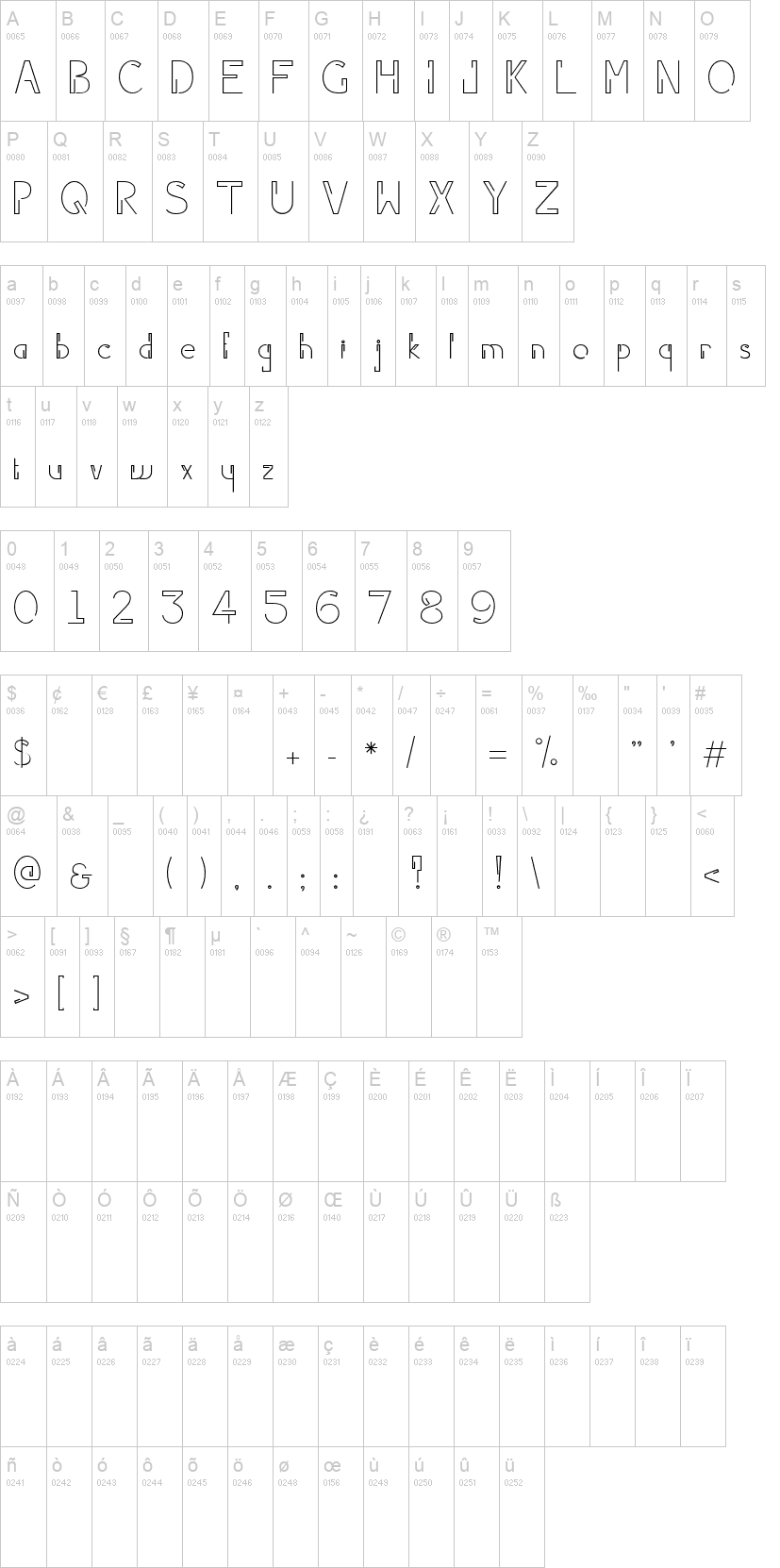
Note of the authorPartylicious is a modern Neon Light Font, Suitable for modern night theme. Its great for your store, branding, quote and title for magazine, film, or product design.